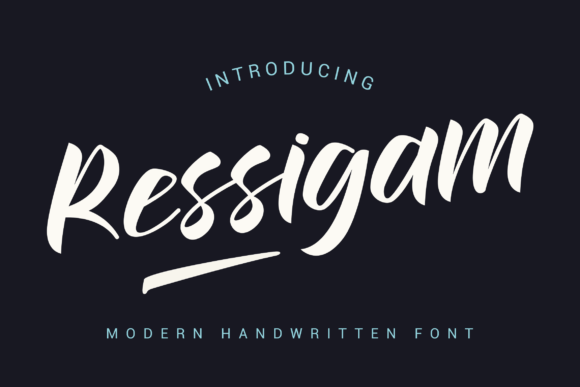
Embark on a typographic journey with Ressigam Font, a bold and authentic handwritten masterpiece crafted by the ingenious kalingga.albert! This script font family is a symphony of creativity, poised to elevate your designs with its captivating charm.
Ressigam Font's strokes dance and twirl with an organic flair, mirroring the fluidity of human expression. Each letterform is a testament to the power of individuality, radiating personality and authenticity. Whether you're creating a logo that demands attention, unleashing your creativity on a t-shirt design, or seeking a unique touch for your export project, Ressigam Font is your steadfast companion.
Picture your logo, adorned with the distinctive characters of Ressigam Font, standing out amidst a sea of mediocrity. Its bold presence commands attention, inviting customers to delve into your brand's story. Or, envision your t-shirt designs transformed into wearable art, with Ressigam Font's strokes adding a touch of personal flair to every creation.
But Ressigam Font's versatility doesn't end there. Its adaptability extends to a wide range of contexts, from invitations and posters to website designs and social media graphics. Its organic flow lends an air of authenticity to any project, captivating audiences with its genuine charm.
Dive into the world of Ressigam Font and discover a font that transcends the ordinary. Its boldness and authenticity are a breath of fresh air in a world of monotonous typography. Embrace the power of handwritten expression and let your designs bloom with originality. Ressigam Font is not just a font; it's an experience that will ignite your creativity and leave a lasting impression on your audience.